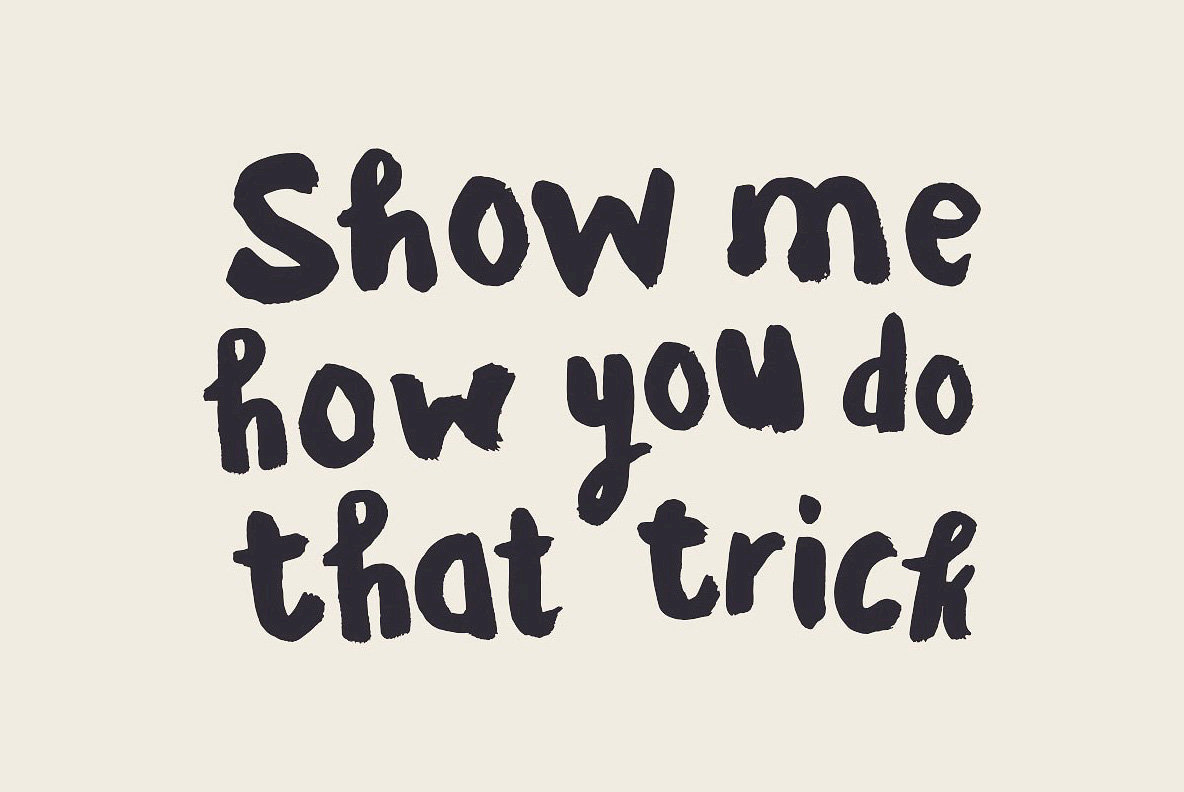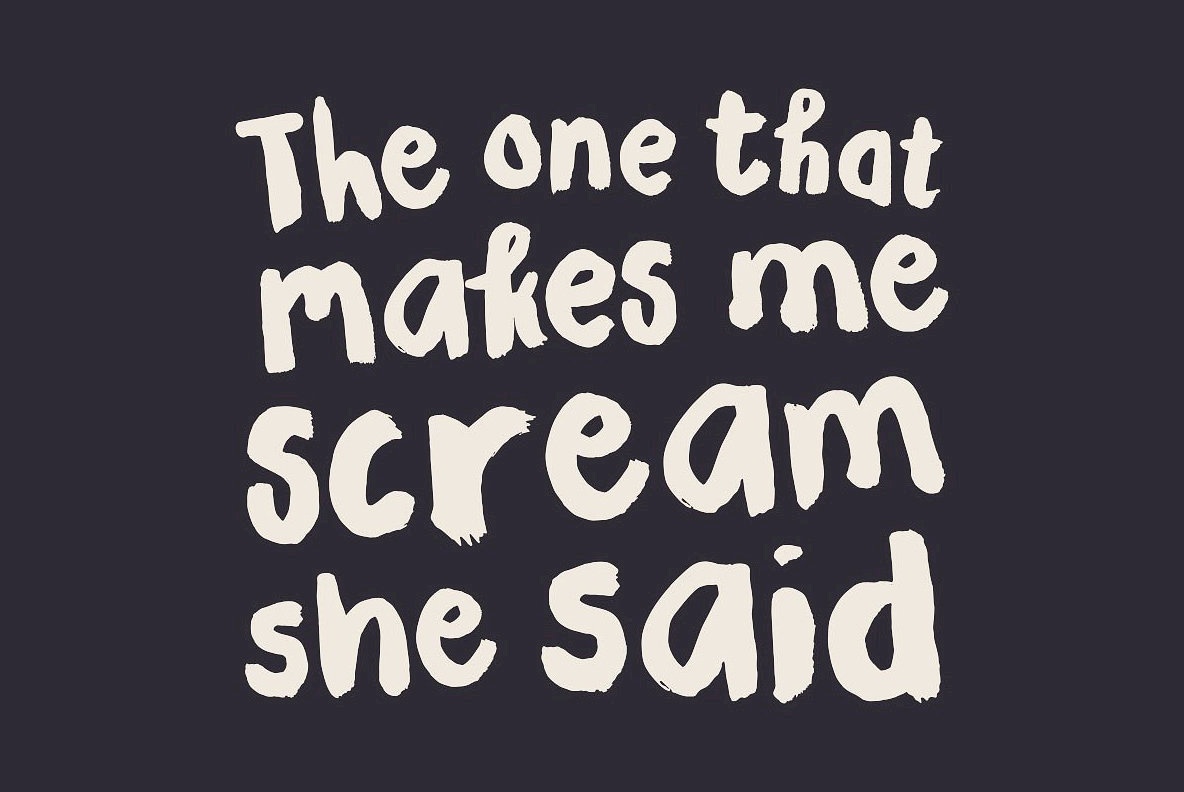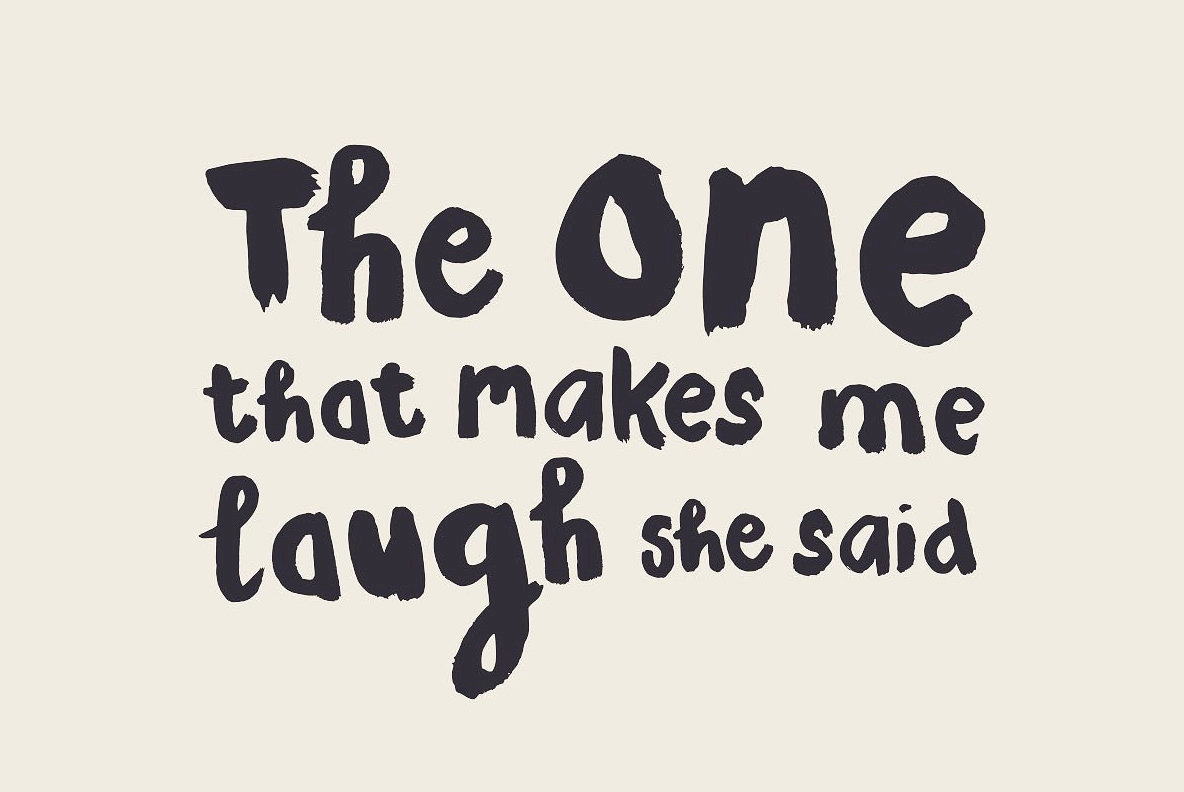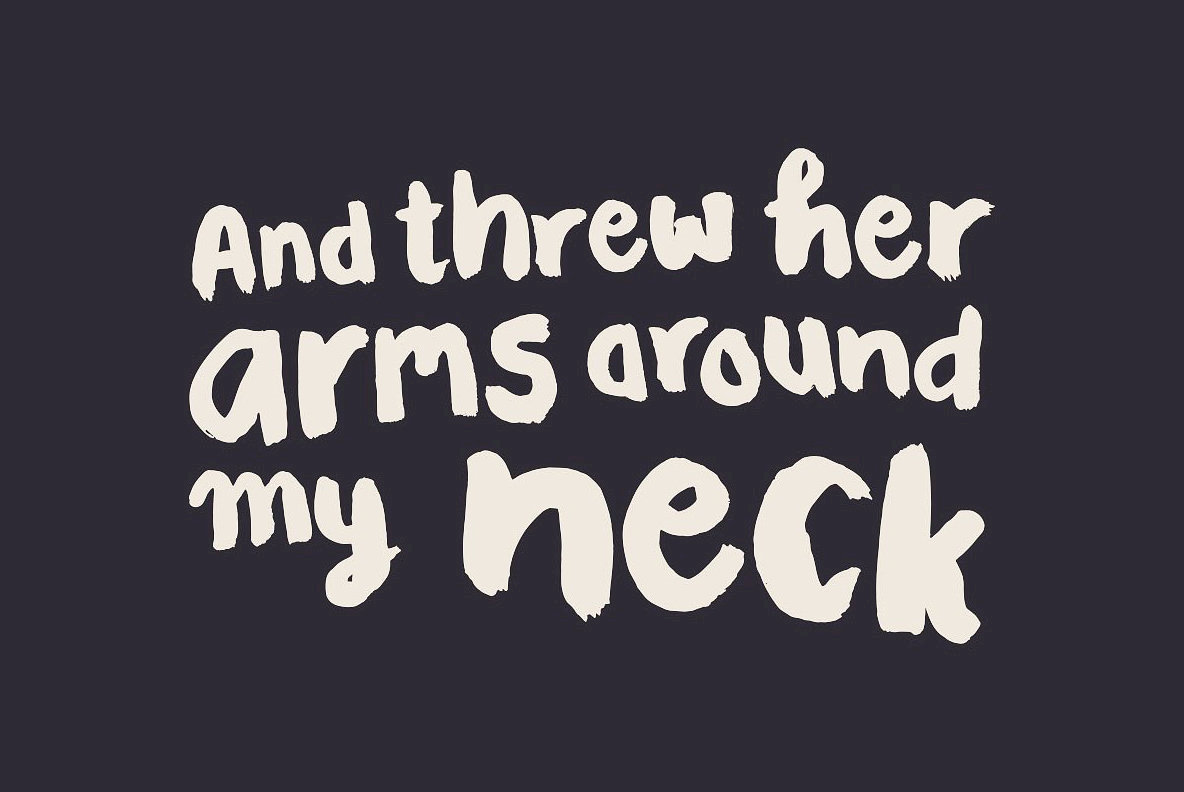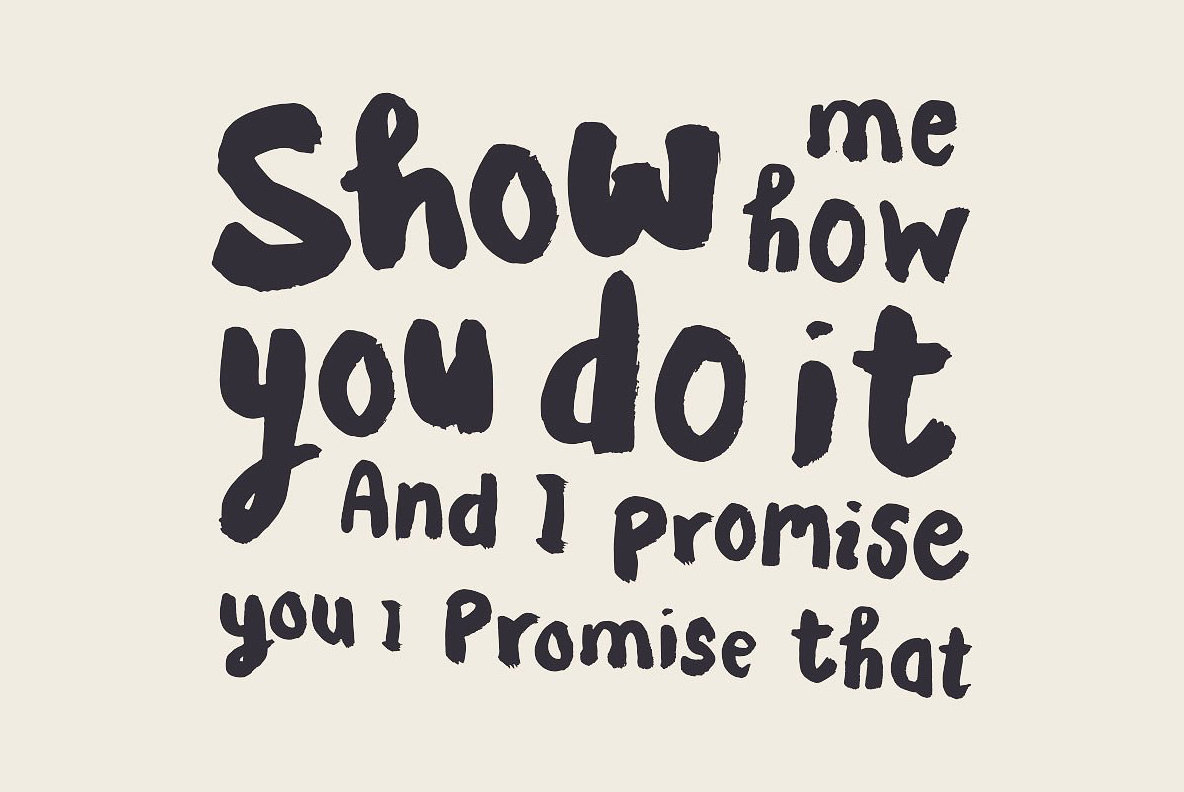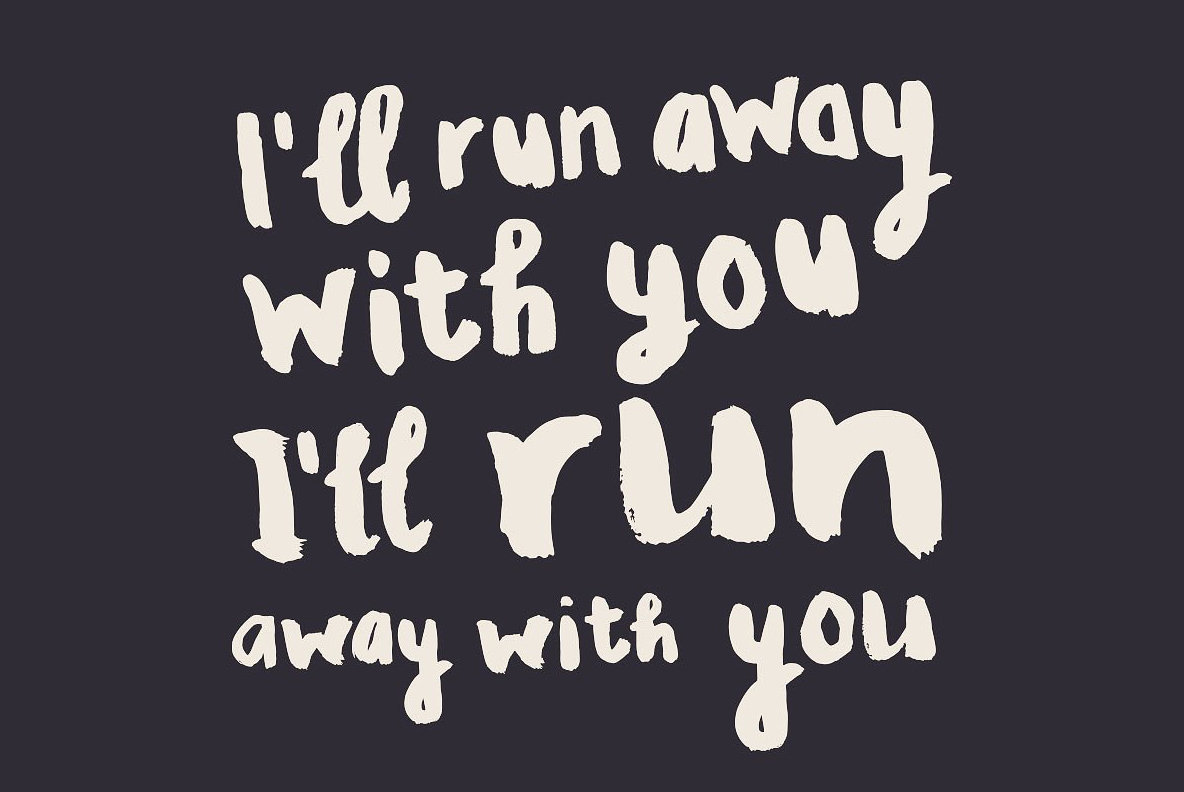
Just like heaven Font
Just Like Heaven
Just like heaven my new brush typeface. It's bold, brazen and is without shame. It's a bit of a misfit, you're either going to love it, or hate it.
It's not totally in touch with reality and will give your design work the impression of being somewhat crazy in the coconut.
With its different widths and heights, it makes no apologies for being unusual.
The power of Opentype
Just like heaven has 4 alternatives for each upper and lowercase glyph. It uses OpenType technology to cycle through those alternative glyphs so you shouldn't get the same letter twice in the same word. That makes everything look a little bit more random.
The alternatives are only available via OpenType-aware applications. Applications such as Photoshop, Illustrator and InDesign.
The alternative glyphs are also in stylistic sets, so you can select them manually if you want to.
Just like heaven font includes
One weight
Uppercase and lowercase
Numbers
Punctuation & Symbols
4 alternatives for letters
Western European characters
Central European characters
South Eastern European characters